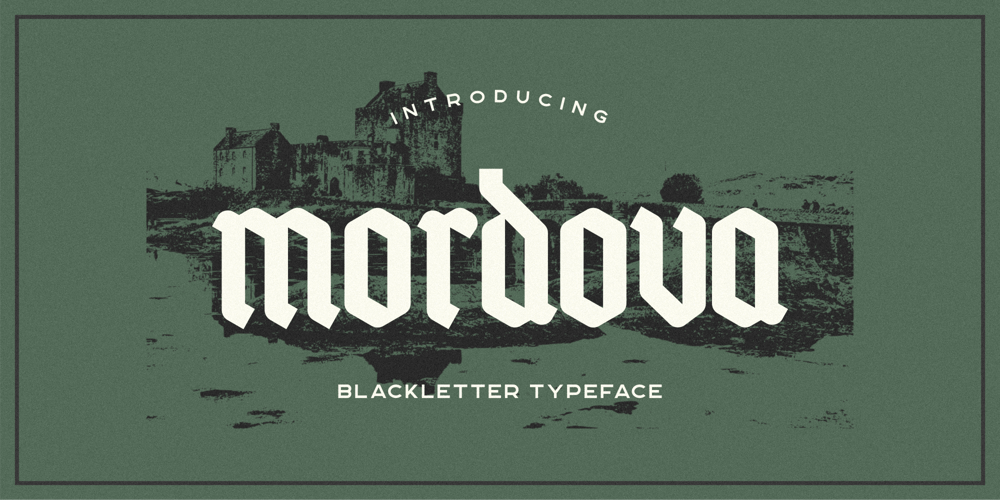
Mordova
Mordova font
Mordova Font Family was designed by Holis Majid and published by Holis.Mjd. Mordova contains 1 styles and family package options. The font is done with a minimalist touch of gothic and blackletter, inspired by several music and bands that I was currently enjoying and often listened to throughout the day, where the music depicts a little visually in the form of font characters like this Mordova font, feels loud, vibrant , dark but simple and easy to read.